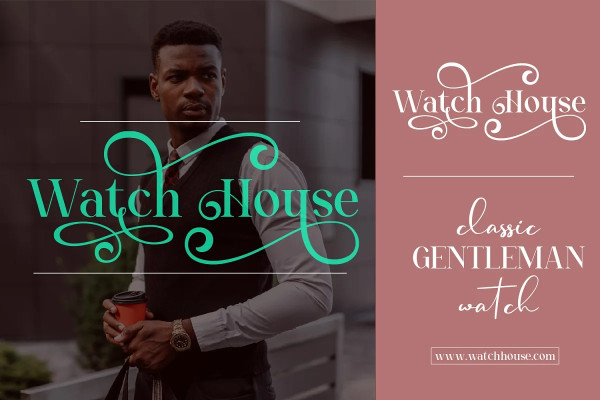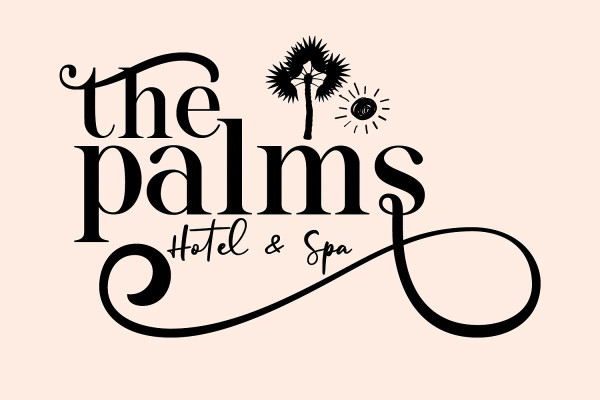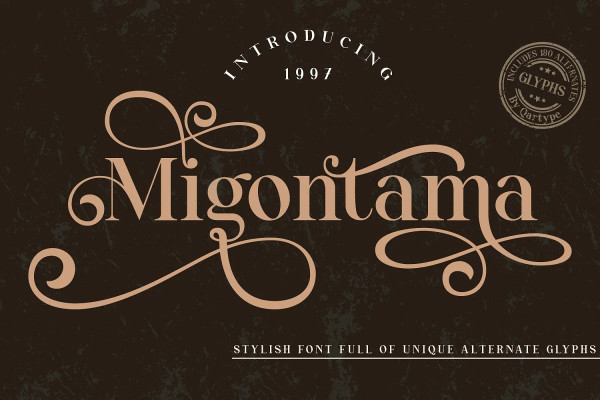
Migontama Font
Migontama Font is a stylish modern font with a touch of vintage. It looks amazing at display sizes and is easily readable in text size. Migontama comes with access to your OpenType features, large selection of alternate glyphs (up to 5 for each letter). There are two versions of this font: REGULAR and Bold. Migontama is a display font made mainly for headlines, titles, and other short texts and is well-suited for advertising, vintage mood board, branding, logotypes, packaging, titles, editorial design and modern and vintage design.